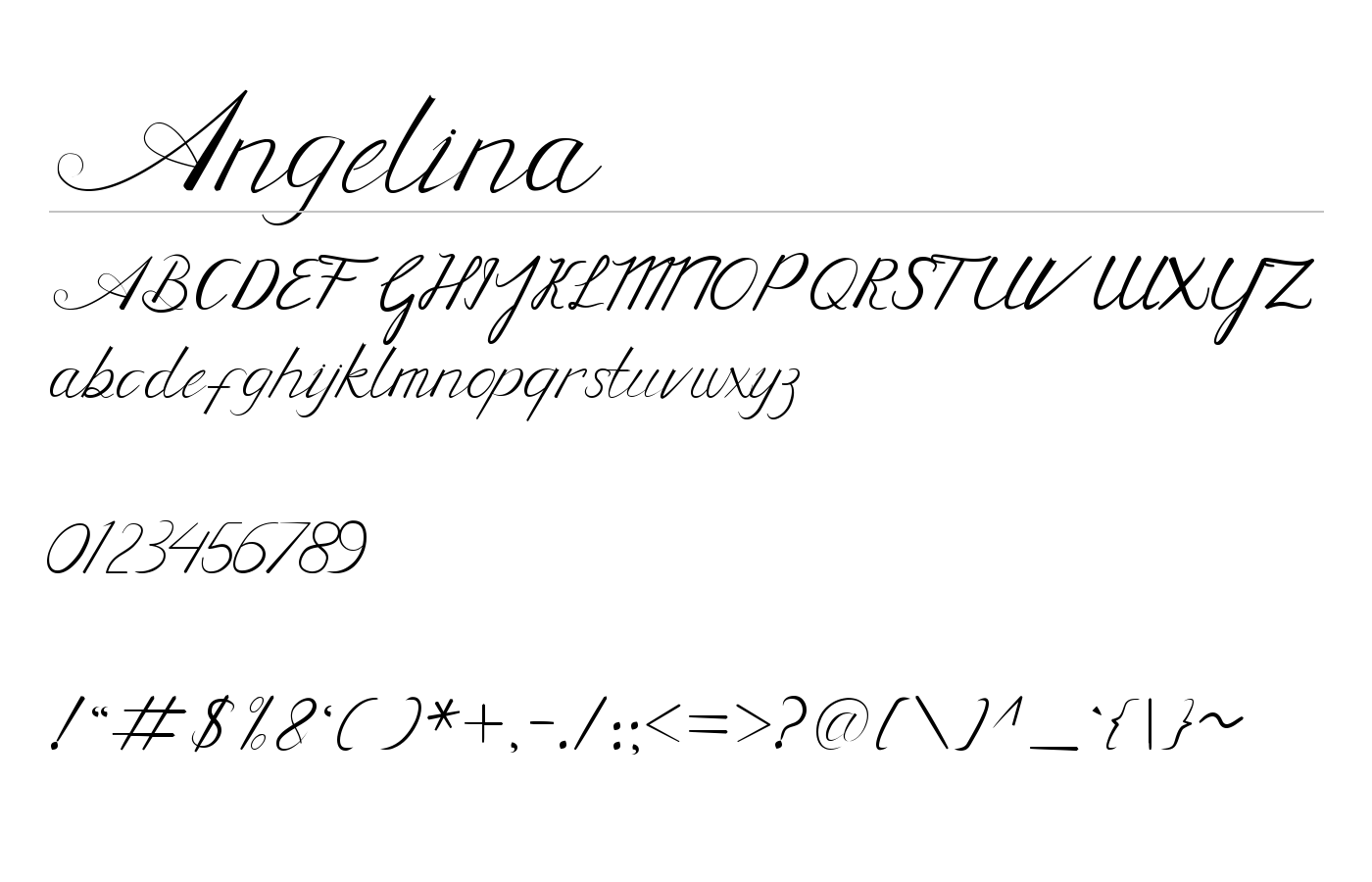
Angelina Font is a delicate and elegant script typeface characterized by its smooth, flowing strokes and refined, handwritten style. Its thin, graceful lines and slightly slanted letterforms give it a sophisticated and romantic feel, making it ideal for invitations, branding, and design projects that seek a touch of classic beauty and charm. This font works best in headline or decorative uses where its fine details can shine without losing readability.
Angelina Font
About Angelina Font